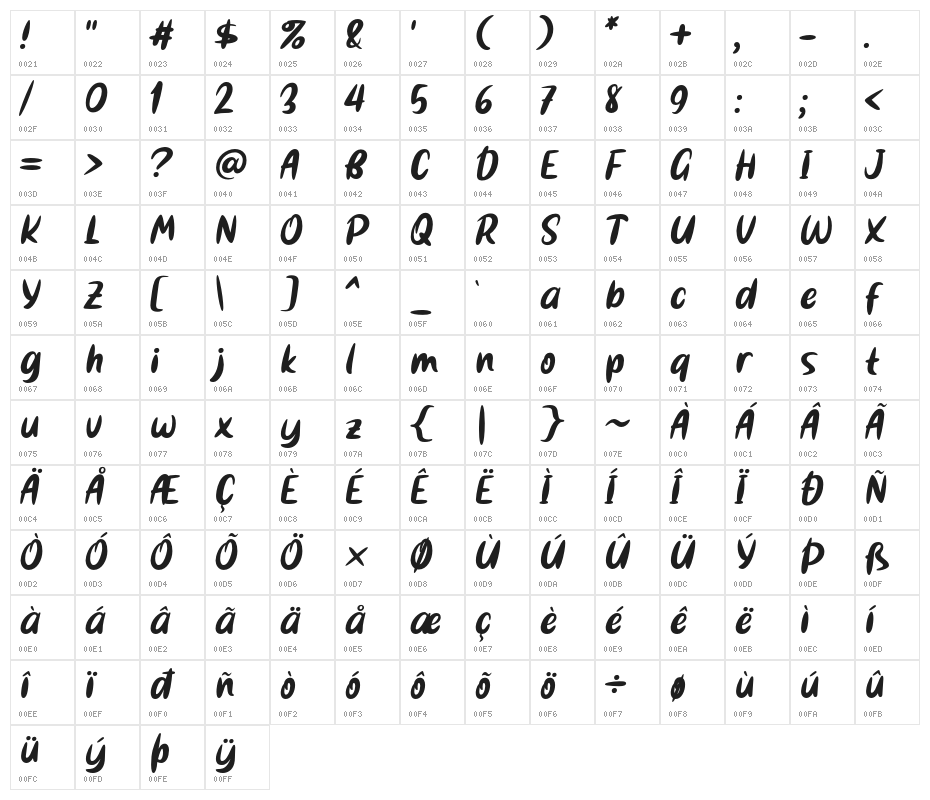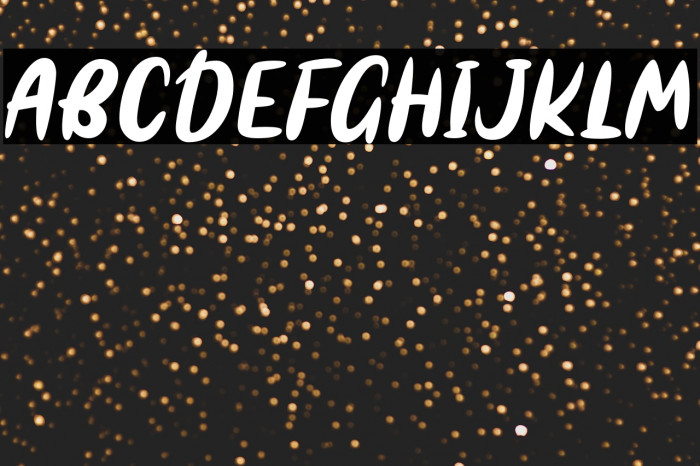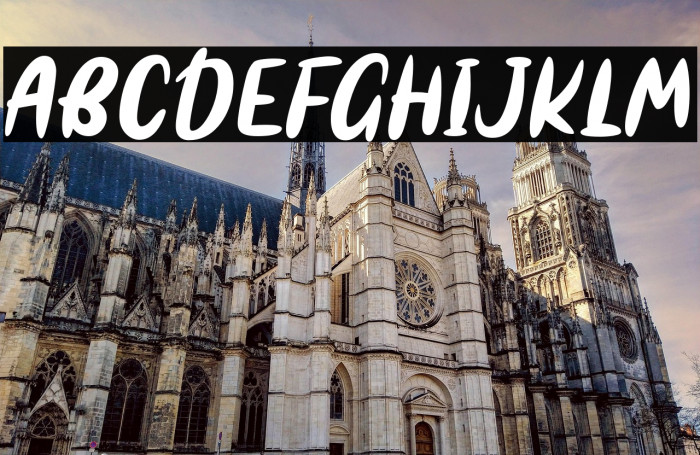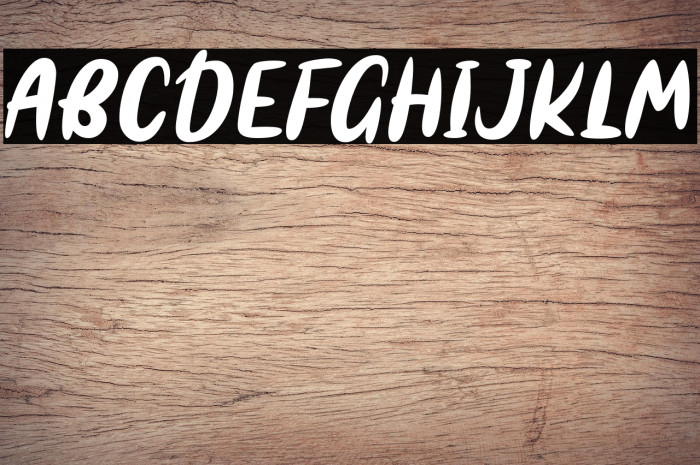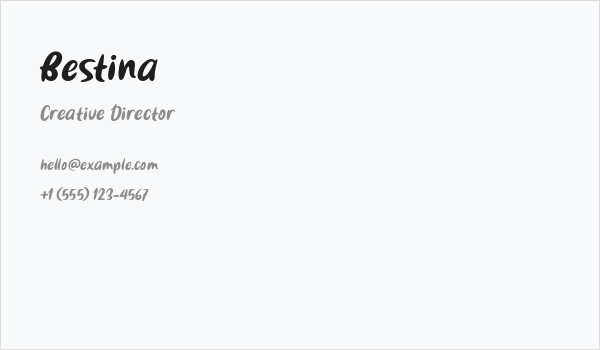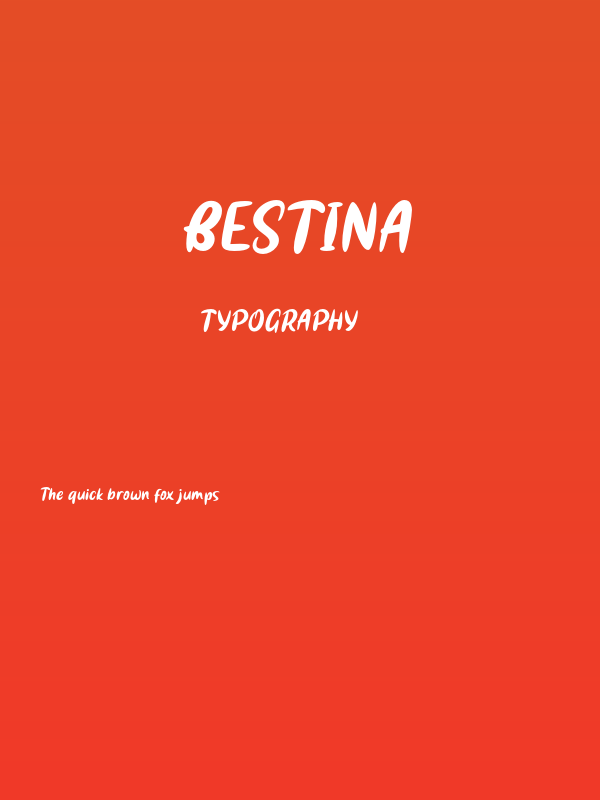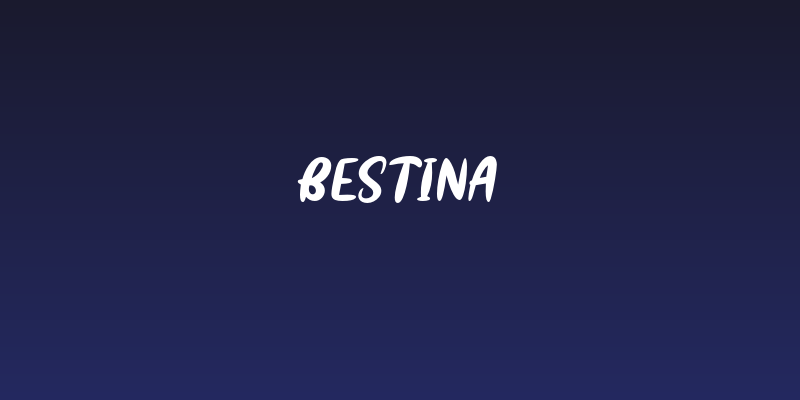
Bestina Font
Bestina Description
This font features a bold and dynamic script style with a handwritten feel. The letters are slightly slanted, giving a sense of movement and energy. The strokes are thick and consistent, providing a strong visual impact. The uppercase and lowercase letters are well-balanced, with rounded edges that add a friendly and approachable character. The numerals and special characters maintain the same lively style, ensuring uniformity across all glyphs. This font is perfect for projects that require a personal touch or a creative flair.
| Proposed Projects | Ideal for branding, packaging, greeting cards, and social media graphics. |